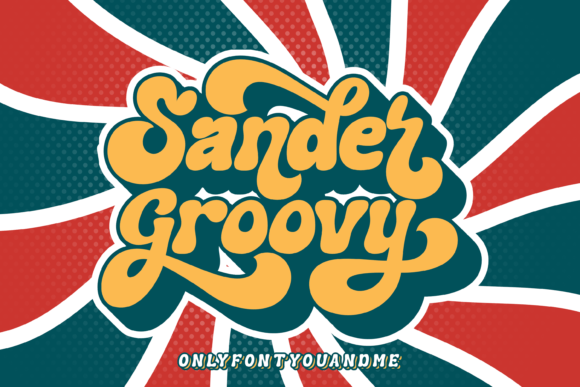
Looking for the best font to capture the beauty and romance of your wedding vows? Look no further than Sander Groovy Font! Created by onlyfontyouandme, this playful, cute, and fun display font is the perfect way to add a touch of whimsy to your special day.
With its PUA encoding, Sander Groovy Font offers easy access to all of its glyphs and alternates, making it a breeze to customize to your exact needs. Whether you're designing T-shirts, stickers, headlines, magazines, logos, branding, or anything else, this font will help you create the perfect look.
But Sander Groovy Font isn't just great for weddings. It's also a fantastic choice for any project that needs a bit of fun and personality. Use it to add a touch of playfulness to your social media posts, to create eye-catching packaging designs, or to make your blog stand out from the crowd.